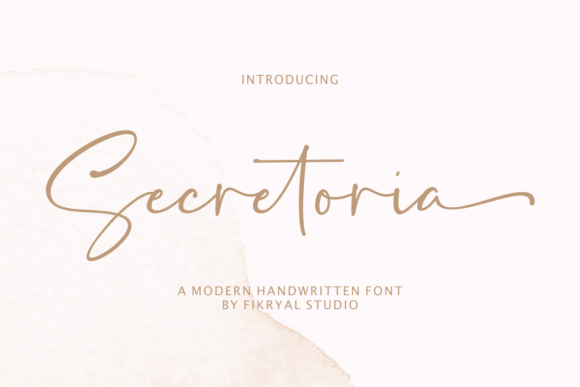
Unveil the Secretoria Font: Where Elegance Meets Distinction
Journey into the realm of typography and discover the captivating essence of Secretoria, a script font that embodies grace, sophistication, and timeless appeal. Meticulously crafted by Fikryal Studio, this font is a symphony of flowing lines, delicate curves, and intricate details that will elevate your designs to new heights.
As a script font, Secretoria possesses an inherent charm and elegance that lends itself perfectly to branding logos. Its thin and fashionable appearance exudes a sense of luxury and refinement, making it an ideal choice for businesses seeking to establish a strong and memorable brand identity.
Embark on a creative odyssey with Secretoria and unlock a world of possibilities. Let your imagination soar as you utilize this font to create stunning logos that speak volumes about your brand's essence. Whether you're designing for fashion, beauty, lifestyle, or any industry that demands a touch of elegance, Secretoria will effortlessly elevate your designs.
Beyond its visual allure, Secretoria is a remarkably versatile font that adapts seamlessly to a multitude of design projects. Its PUA encoding grants you effortless access to a treasure trove of glyphs and swashes, empowering you to add a touch of playfulness and uniqueness to your creations. Unleash your creativity and explore the endless possibilities that Secretoria holds.
Step into the spotlight and let Secretoria transform your designs into masterpieces. Embrace the power of typography and witness the remarkable impact it can have on your branding and marketing efforts. With Secretoria as your ally, you'll leave an indelible mark on your audience, fostering a lasting connection that transcends the boundaries of ordinary fonts.